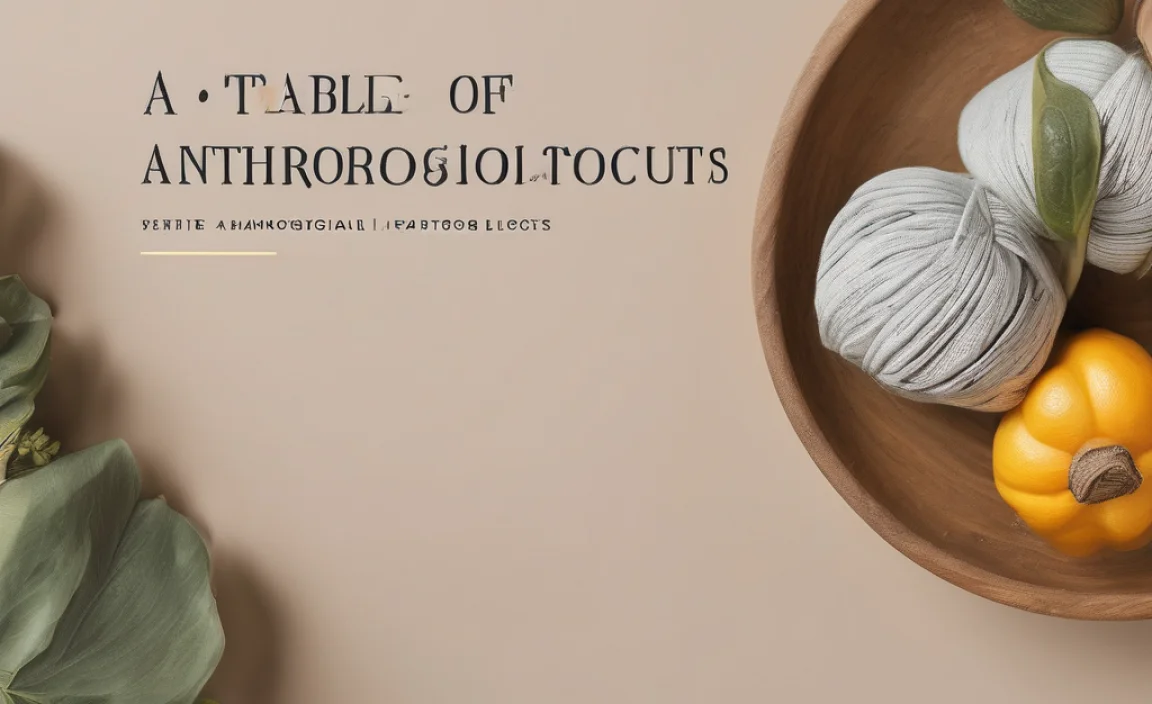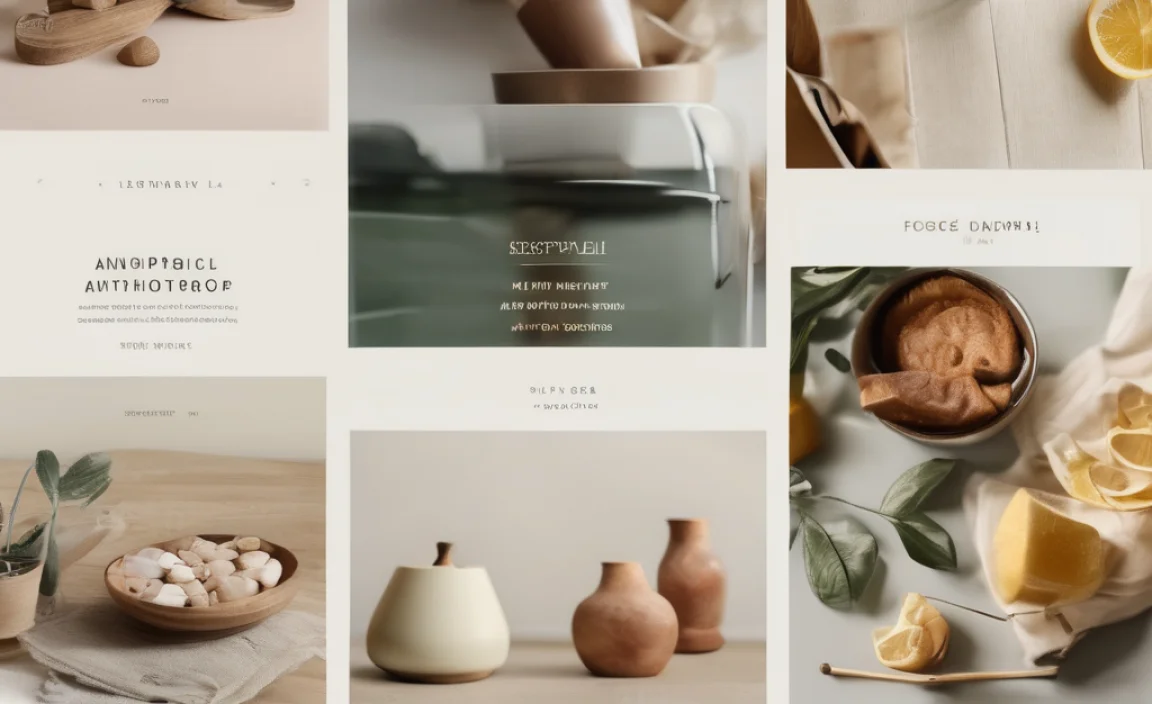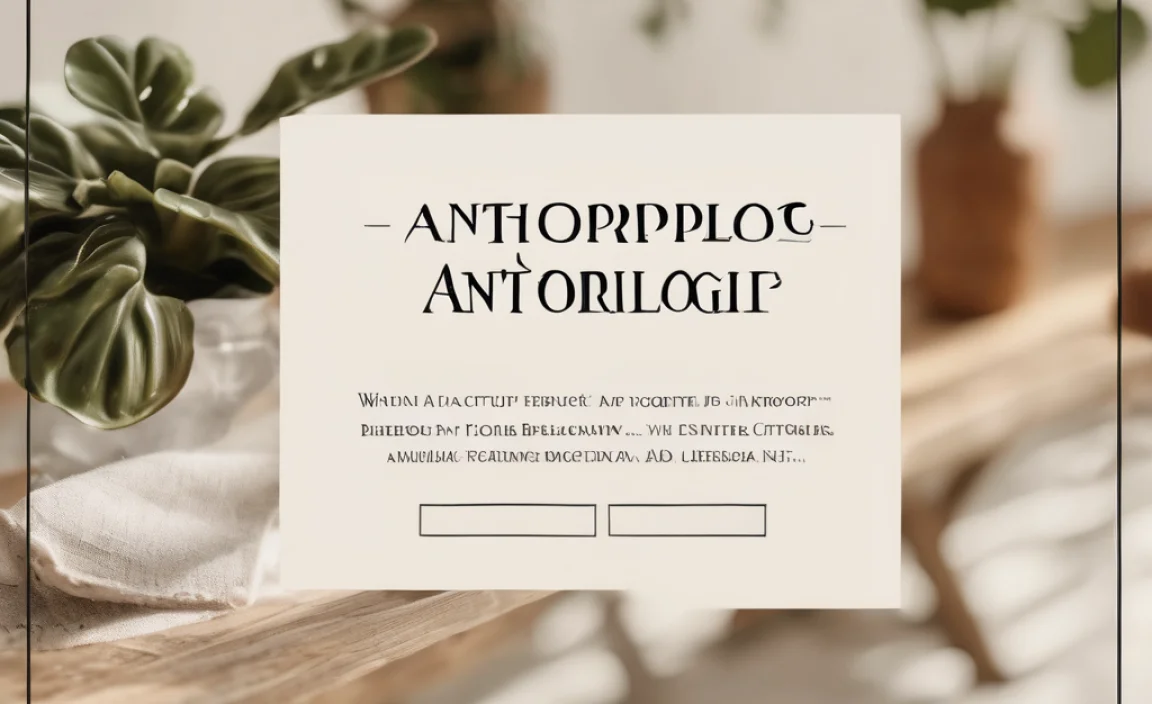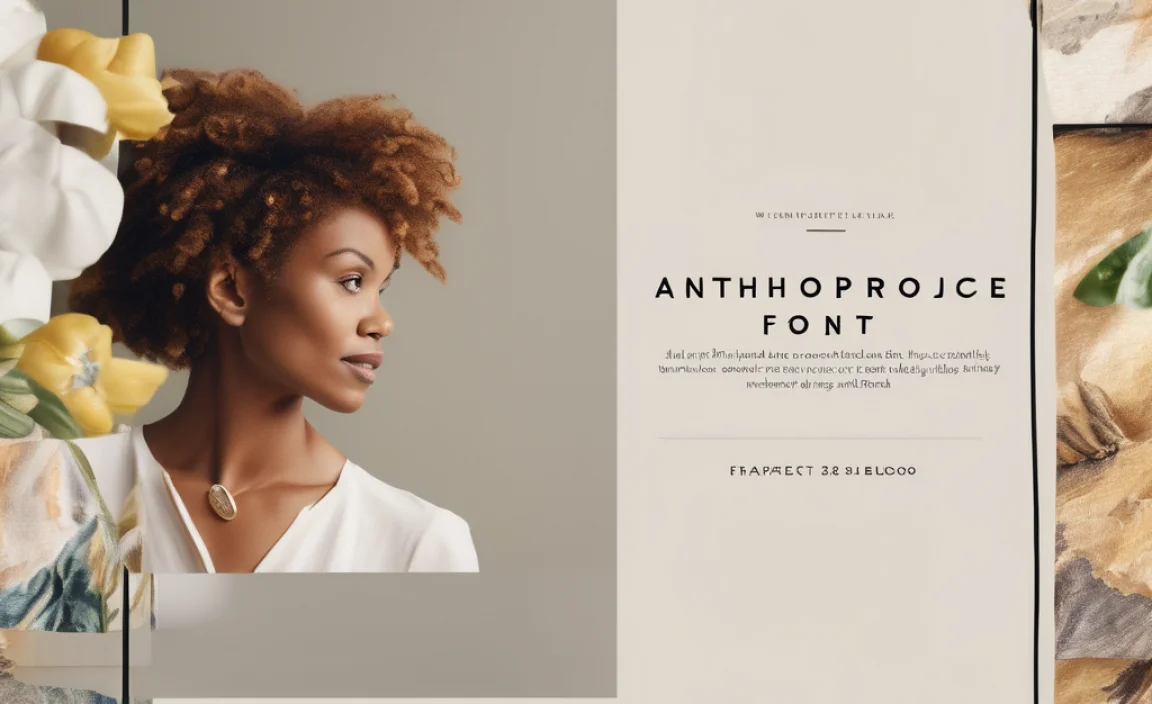
Have you ever wondered why some fonts look so stylish? Imagine a font that feels like walking through a cozy, artsy store. That’s what the Anthropologie font is like. It’s inspired by a popular brand known for its unique and creative style. Fonts can change how we feel about the words we read. Let’s dive into the world of this fascinating font and see why it’s so special!
Key Takeaways
- The Anthropologie font adds a stylish, artistic feel to text.
- It is inspired by a popular brand known for creativity.
- This font is perfect for a unique, cozy design.
- Using it can make your projects stand out.
- The Anthropologie font is trendy among young designers.
What Makes Anthropologie Font Special?
The Anthropologie font is special because of its unique style. It combines elegance with a touch of art. This font looks like it comes straight from an art store. It can make any text stand out. Imagine reading a book or a card with this fancy style. It feels different and exciting. Many people use it for creative projects. They want something that looks special and different from regular fonts. This font is like wearing an artistic outfit. It makes everything look better and more stylish.
- Unique, artistic design.
- Inspired by a well-loved brand.
- Perfect for creative projects.
- Makes text look special.
- Gives words an elegant feel.
This font is not just about style. It’s about feeling and creativity. When you use it, you add a bit of art to your words. It makes the reader feel like they’re inside a cozy store filled with interesting things. That’s why many people love using it for their designs.
Fun Fact or Stats : Did you know fonts can change how we feel about words?
Where Did the Inspiration Come From?
The inspiration for the Anthropologie font comes from a popular store called Anthropologie. This store is known for its unique and artistic products. They sell clothes, furniture, and much more. Everything there has a special touch. The font captures this feeling. It looks like the items you find in the store. Have you ever visited a place that made you feel inspired? That’s what this font tries to do with words. It makes everything look like it belongs in a creative and fashionable space.
How Can You Use This Font?
You can use the Anthropologie font in many ways. It’s great for invitations, posters, and even school projects. This font adds a cozy and artistic touch. Think about using it for a birthday card. Imagine how special that card would look. Do you have a project that needs a bit of style? This font could be the perfect choice. It helps your work stand out and feel different. It’s like adding a splash of color to your designs.
Why Is It So Popular?
The Anthropologie font is popular because it looks different from other fonts. Many people love its unique style. It’s trendy among young designers who want to create something special. Do you like things that are unique and artistic? That’s probably why people are drawn to this font. It grabs attention and makes the text look lovely. In a world full of regular fonts, it shines like a star. It’s perfect for anyone who loves art and creativity.
- Available on font websites.
- Look for cozy, artistic styles.
- Downloadable for personal use.
- Perfect for creative projects.
- Makes designs look unique.
Many font websites offer free versions. They allow you to explore different styles. You can try several until you find the perfect match. It’s fun to see how each font changes the look of your text. You can experiment and discover what works best for you.
Fun Fact or Stats : Fonts can be downloaded from various online sources!
Tips For Finding The Best Fonts
If you want to find the best fonts, follow some simple tips. First, think about the style you need. Do you want something artistic or formal? Next, explore different font websites. See what they offer. You might find a hidden gem! Also, don’t be afraid to try something new. Sometimes, the best finds are unexpected. Finally, make sure the font fits your project’s mood. Would you use a playful font for a serious project? Probably not! Picking the right font is like choosing the perfect outfit for your words.
Answer: Font choice communicates the mood and tone of a project. The right font, like the Anthropologie font, can make text feel unique and inviting.
Question: What makes the Anthropologie font special?
Answer: The Anthropologie font is special for its artistic style. It transforms ordinary text into something elegant and memorable, perfect for creative designs.
Question: Can fonts change how we feel about text?
Answer: Yes, fonts like the Anthropologie font can change how we perceive text. They add personality and mood, making the message more engaging and impactful.